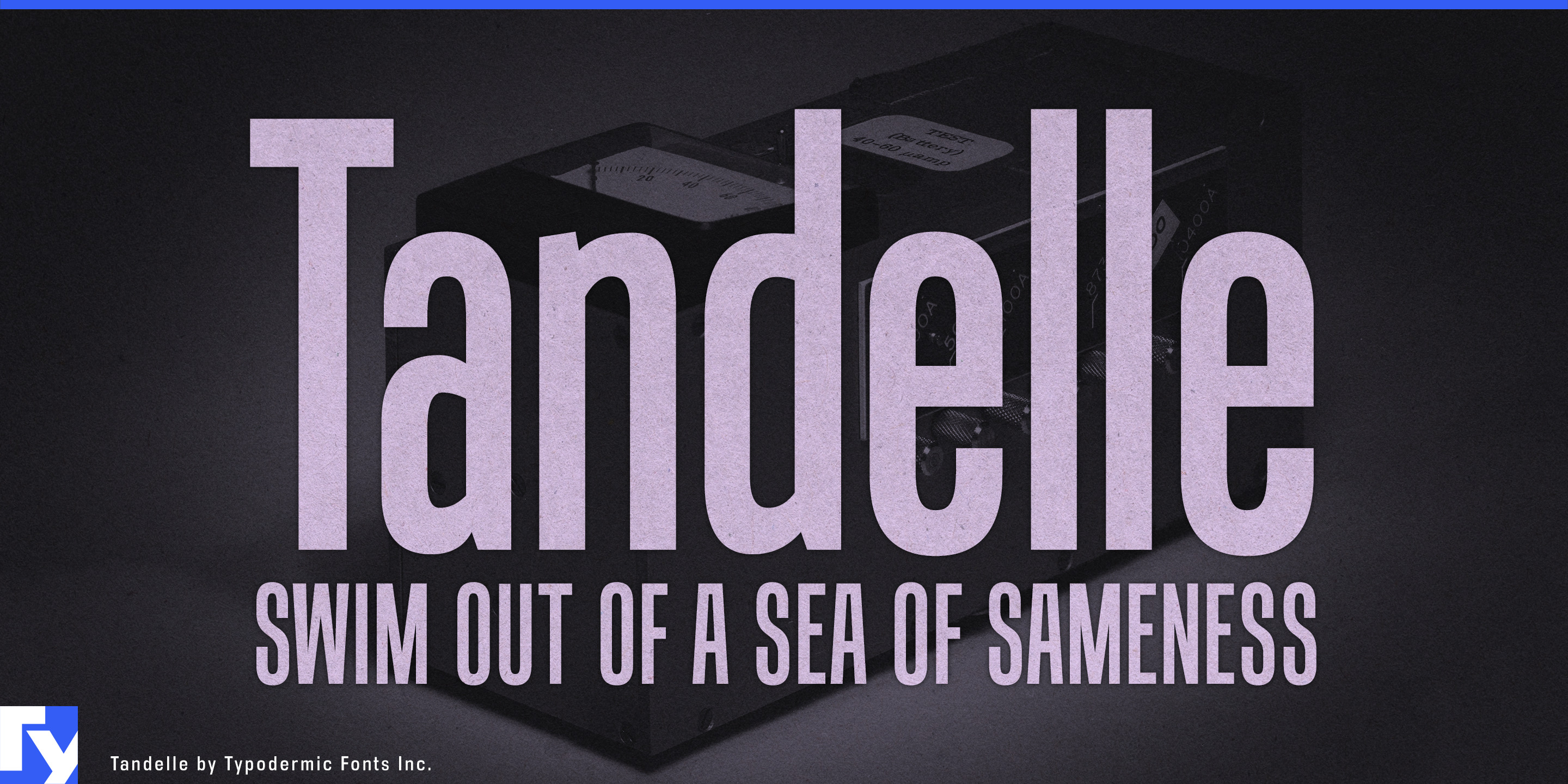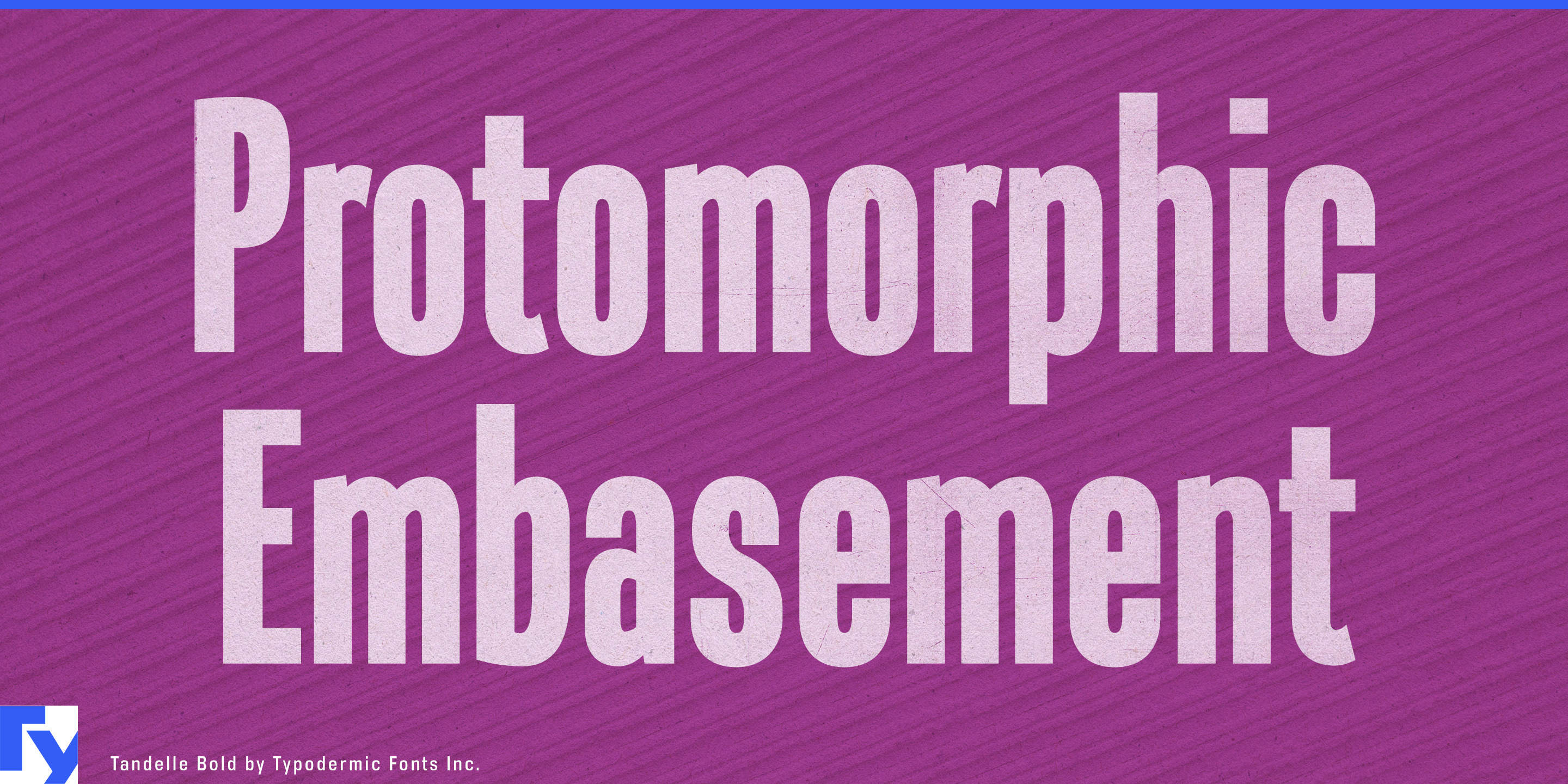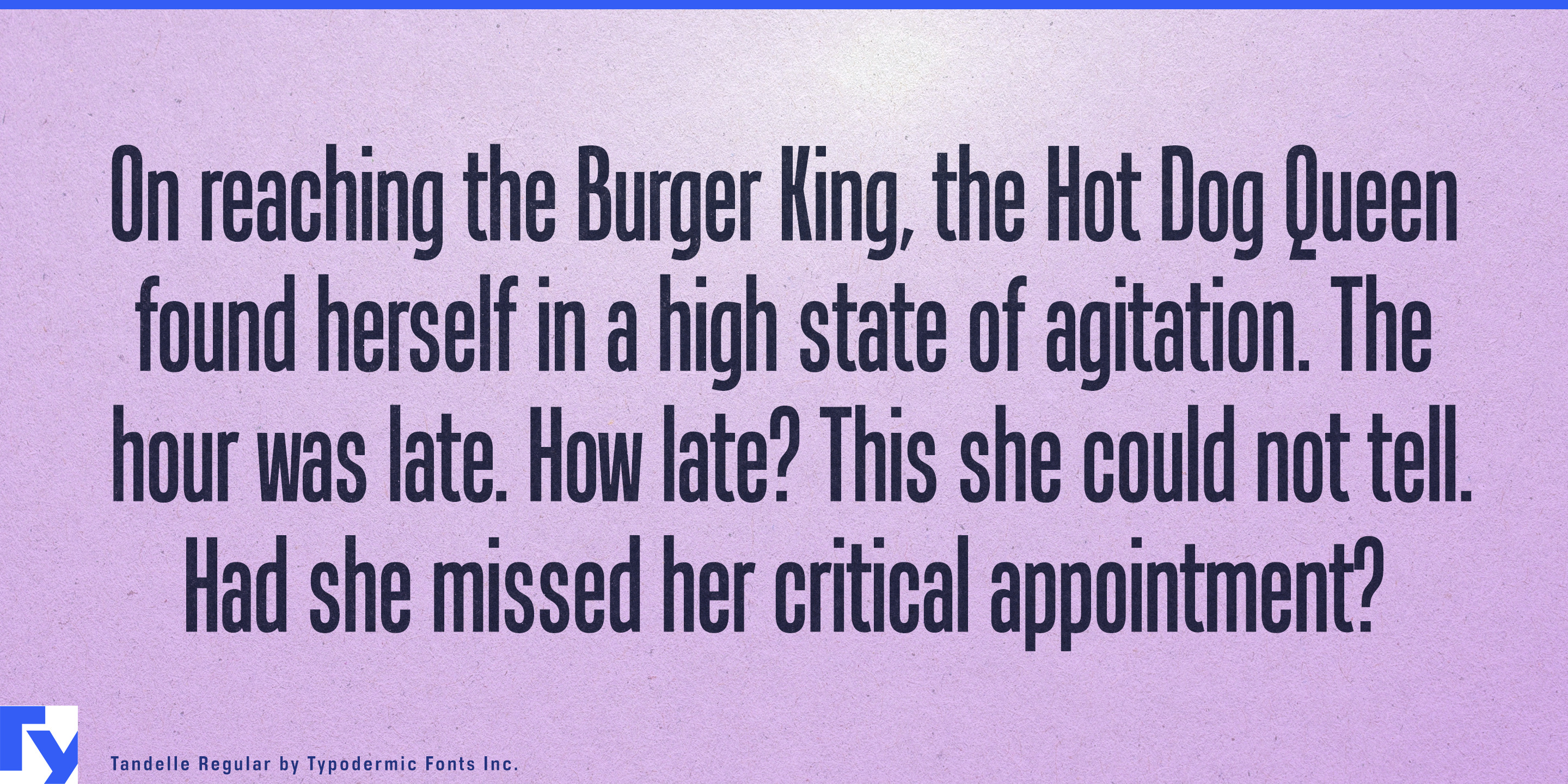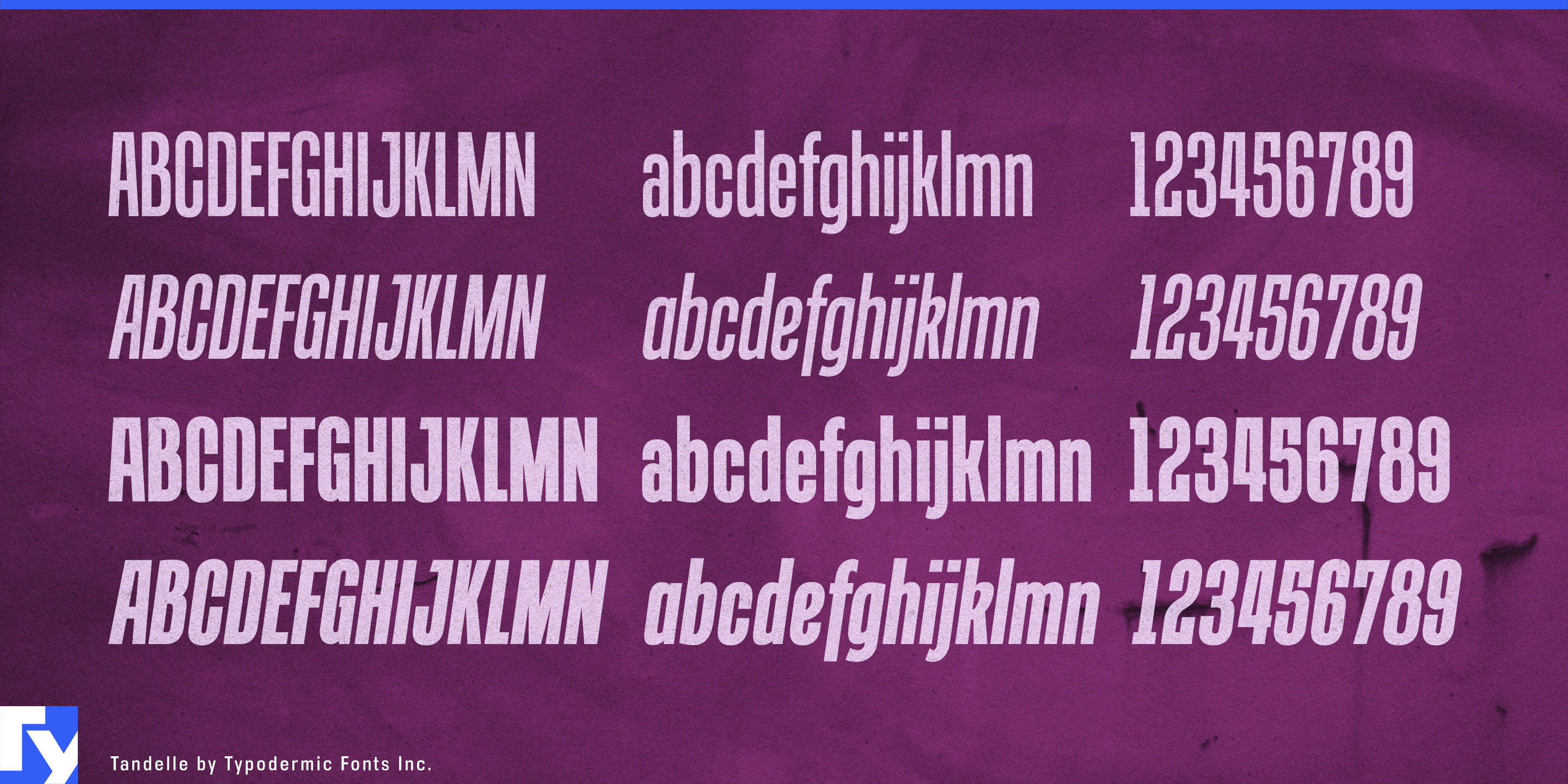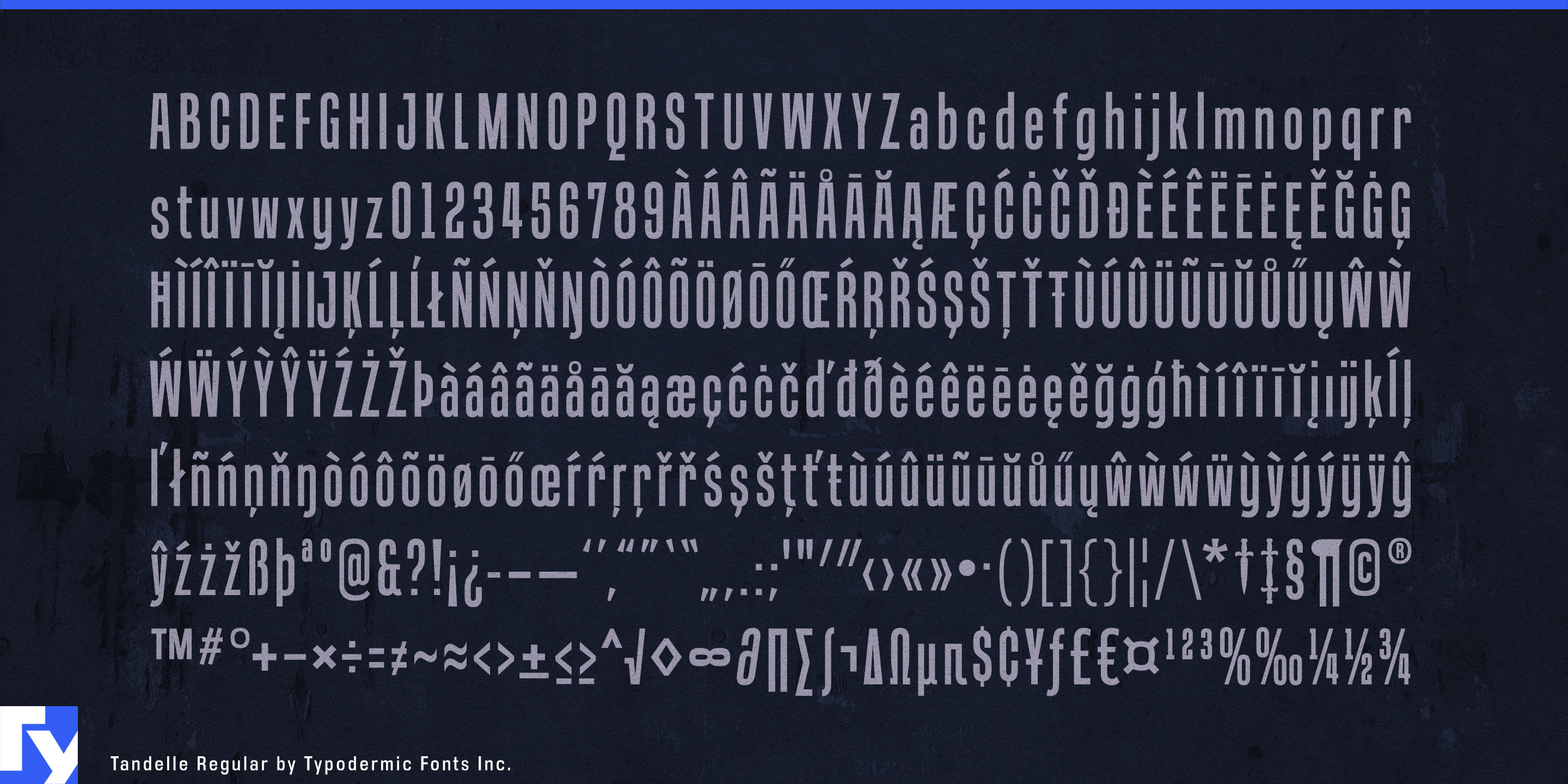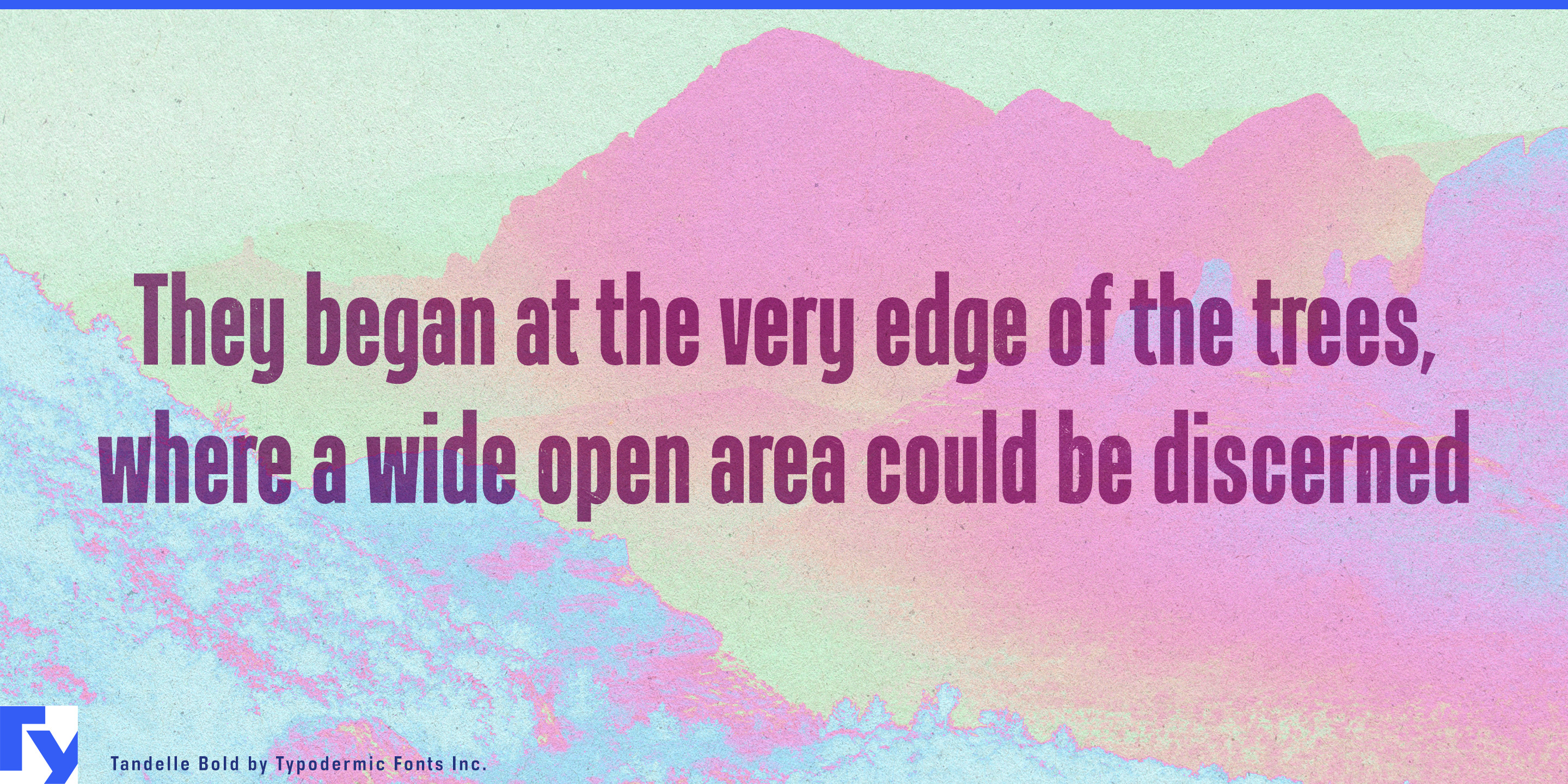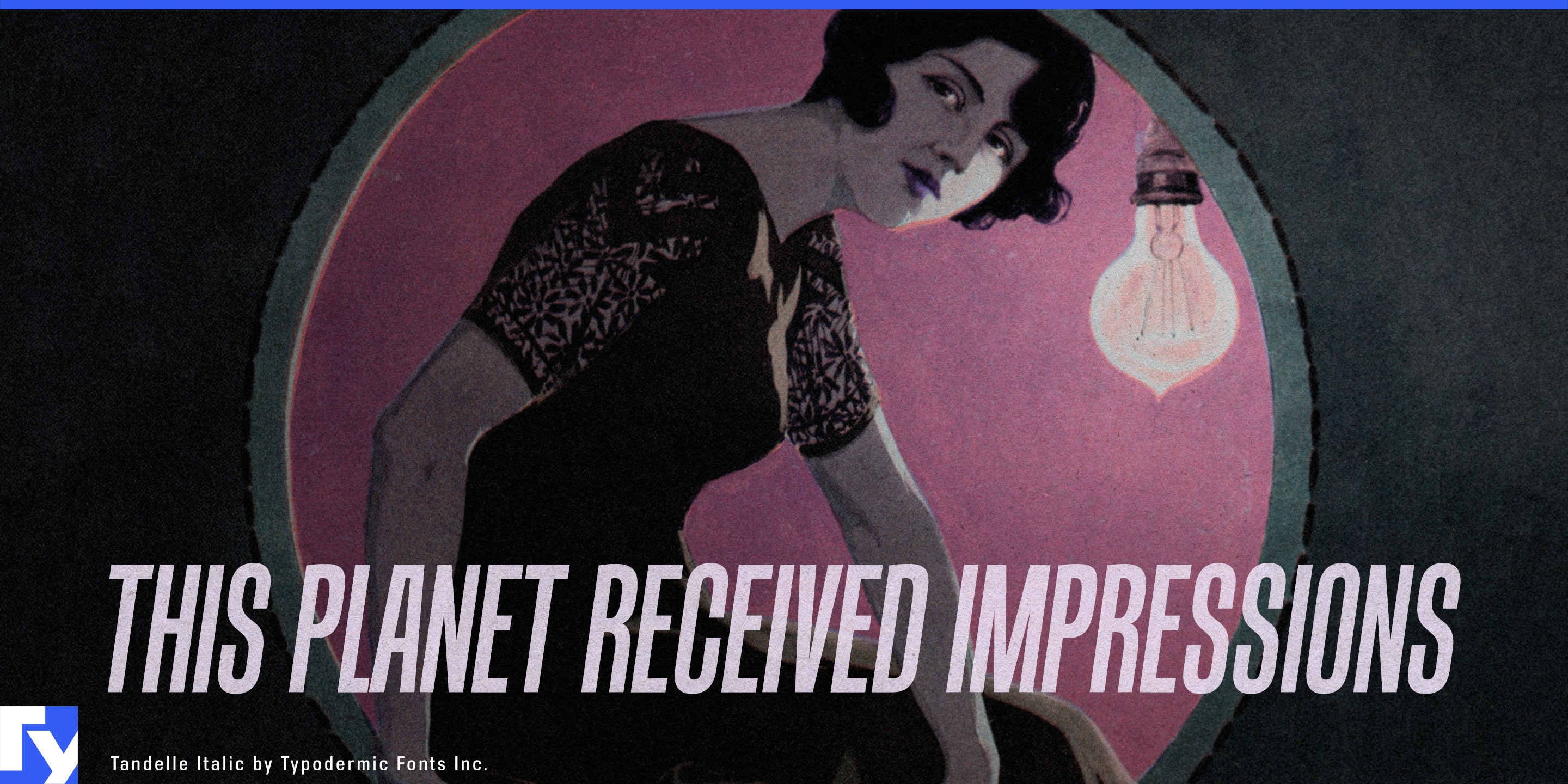
Tandelle is a sans-serif typeface that operates efficiently when there is a limited amount of horizontal space available. Flat points on verticals such as “A” and sharp points on horizontals such as “Z” make it visually distinctive. Tandelle’s spacious shapes and minimal detail make it simple to read despite its narrowness. Regular, Italic, Bold, and Bold-Italic are all available in Tandelle. Most Latin-based European writing systems are supported, including the following languages. Afaan Oromo, Afar, Afrikaans, Albanian, Alsatian, Aromanian, Aymara, Bashkir (Latin), Basque, Belarusian (Latin), Bemba, Bikol, Bosnian, Breton, Cape Verdean, Creole, Catalan, Cebuano, Chamorro, Chavacano, Chichewa, Crimean Tatar (Latin), Croatian, Czech, Danish, Dawan, Dholuo, Dutch, English, Estonian, Faroese, Fijian, Filipino, Finnish, French, Frisian, Friulian, Gagauz (Latin), Galician, Ganda, Genoese, German, Greenlandic, Guadeloupean Creole, Haitian Creole, Hawaiian, Hiligaynon, Hungarian, Icelandic, Ilocano, Indonesian, Irish, Italian, Jamaican, Kaqchikel, Karakalpak (Latin), Kashubian, Kikongo, Kinyarwanda, Kirundi, Kurdish (Latin), Latvian, Lithuanian, Lombard, Low Saxon, Luxembourgish, Maasai, Makhuwa, Malay, Maltese, Māori, Moldovan, Montenegrin, Ndebele, Neapolitan, Norwegian, Novial, Occitan, Ossetian (Latin), Papiamento, Piedmontese, Polish, Portuguese, Quechua, Rarotongan, Romanian, Romansh, Sami, Sango, Saramaccan, Sardinian, Scottish Gaelic, Serbian (Latin), Shona, Sicilian, Silesian, Slovak, Slovenian, Somali, Sorbian, Sotho, Spanish, Swahili, Swazi, Swedish, Tagalog, Tahitian, Tetum, Tongan, Tshiluba, Tsonga, Tswana, Tumbuka, Turkish, Turkmen (Latin), Tuvaluan, Uzbek (Latin), Venetian, Vepsian, Võro, Walloon, Waray-Waray, Wayuu, Welsh, Wolof, Xhosa, Yapese, Zapotec Zulu and Zuni.